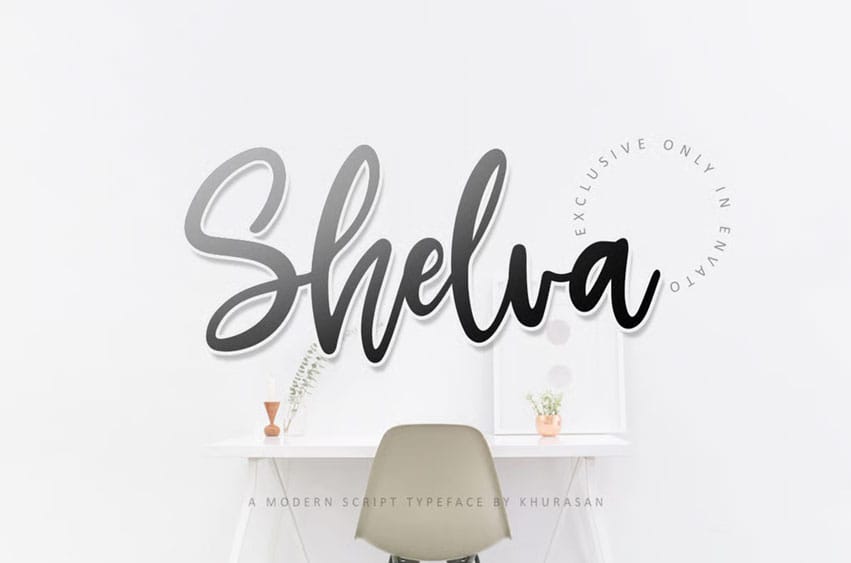
Shelva Script Font is a fun script font, fresh & modern style. Shilva Script Font suitable for logo, branding, greeting card, poster and any design that you create.
Shelva Script Font Preview